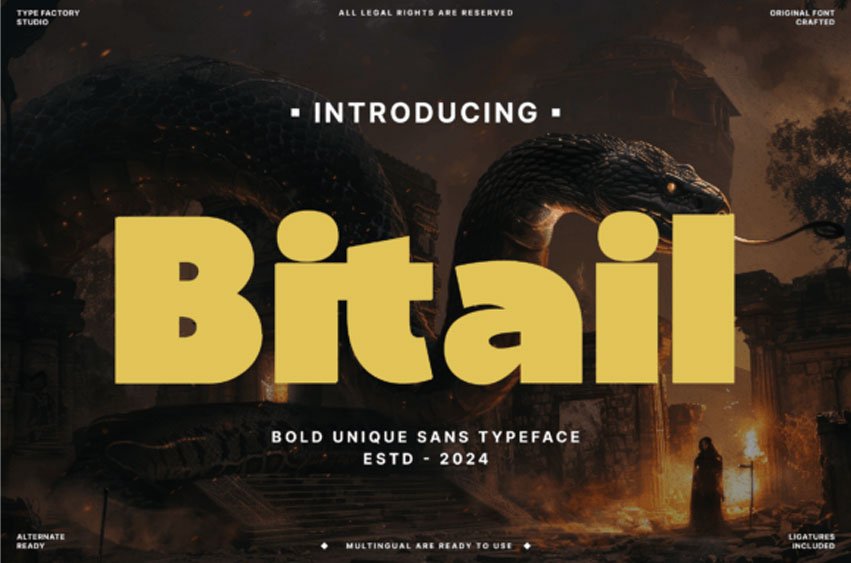
Bitail Font
Bitail Font is a bold sans serif typeface designed with strong geometric shapes and thick letterforms that create a powerful visual presence.
The bold structure makes the typeface suitable for attention-driven layouts such as posters, promotional graphics, titles, and branding applications.